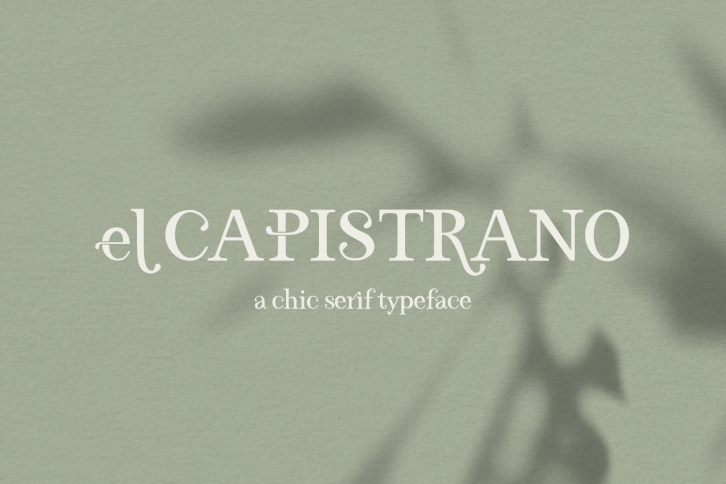
El Capistrano Serif is a trendy and unique font with an authentic style. It was designed by BeckMcCormick and it's a great choice for creative people who need such a font. It was released on August 2, 2021 and the file size is 11.45 MB. El Capistrano Serif will add an organic vibe to any design idea!